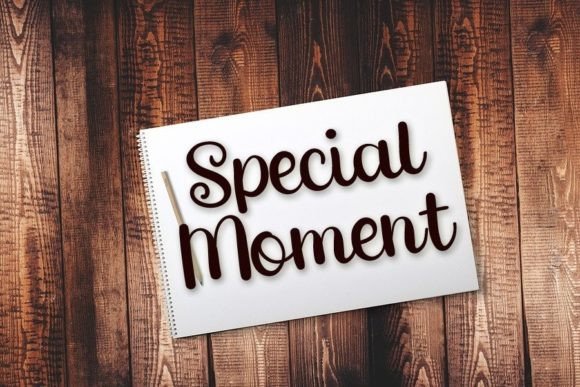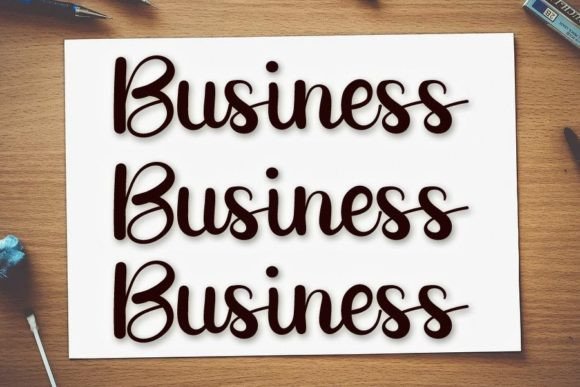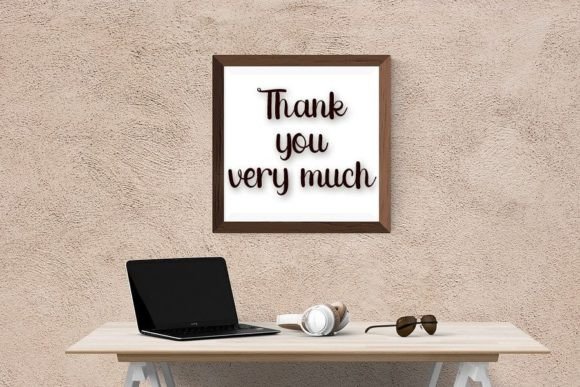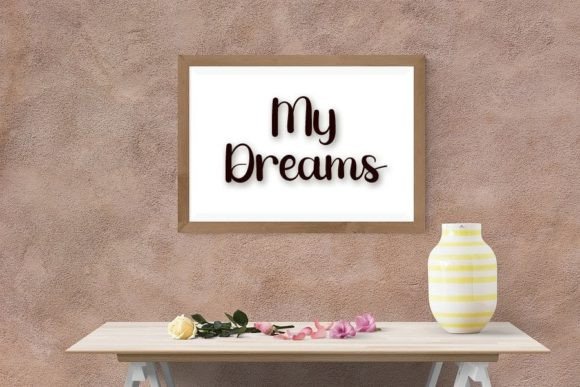
About Hello Beach Font
“Hello Beach” is a fresh and beautiful font that adds a touch of elegance and simplicity to your design projects. With its clean and stylish appearance, this font is suitable for a variety of creative purposes, including YouTube banners, cover logo mockups, wedding invitations, ID cards, flyers, and crafts. Its versatility allows it to enhance the visual appeal of different materials, making your designs look professional and refined.
The font’s fresh and contemporary vibe makes it an excellent choice for modern design applications. Whether you’re working on digital or print materials, “Hello Beach” offers a clean and attractive aesthetic that can elevate the overall look of your projects. Its simplicity and uniqueness make it stand out, creating a memorable impression on your audience.
One of the strengths of “Hello Beach” is its ability to add a touch of sophistication to your designs. Its clean and well-crafted characters create a harmonious visual experience, making your text appear polished and visually appealing. The font’s readability ensures that your message is conveyed clearly and effectively, making it suitable for various communication purposes.
By incorporating “Hello Beach” into your projects, you’re enhancing their visual impact and professionalism. Its fresh and beautiful design adds a touch of elegance, making your designs visually appealing and memorable. Whether you’re a graphic designer, a business owner, or an individual working on personal projects, “Hello Beach” provides you with a versatile and stylish font choice to enhance your creative endeavors and create designs that leave a lasting impression.